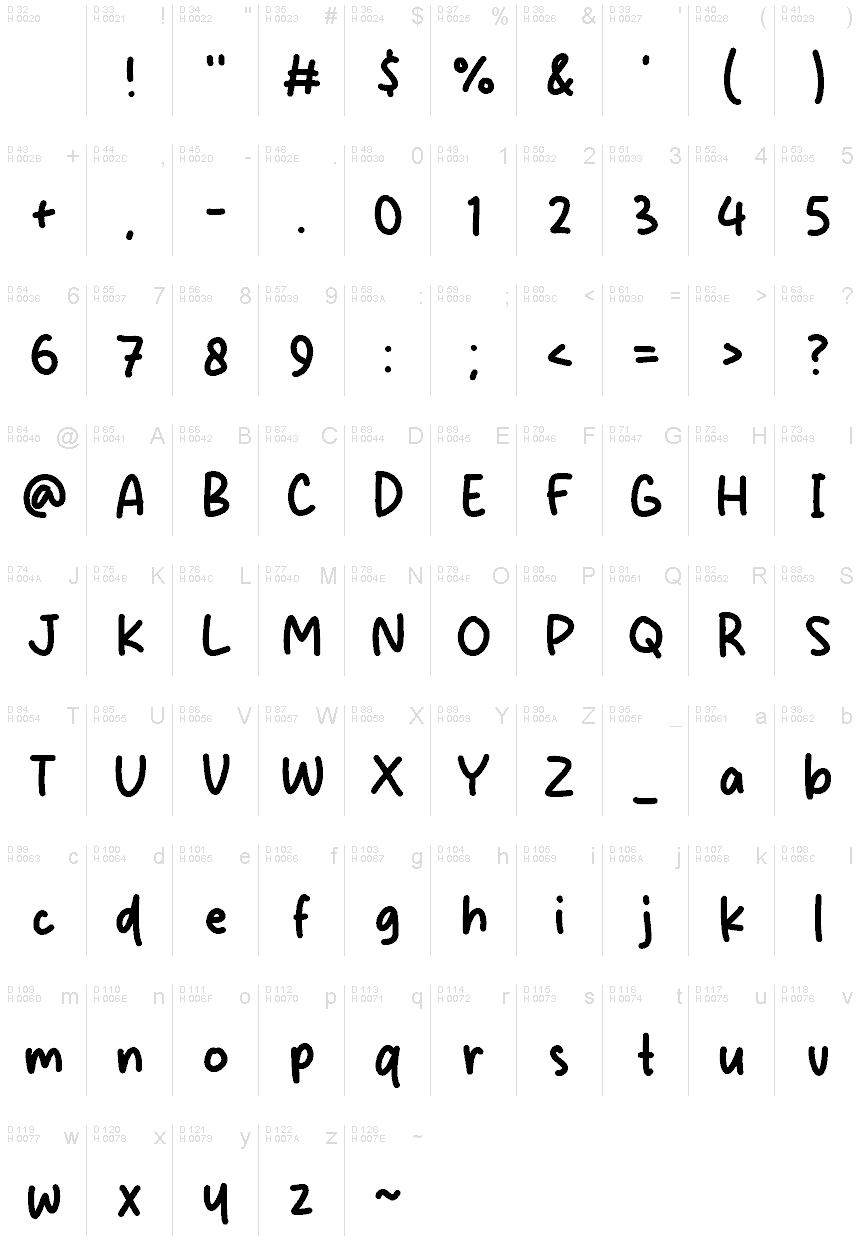
Morning Bright
Morning Bright font, designed by Origin Type, is a free handwritten font that dances with youthful energy. Capturing a casual, friendly, and approachable tone, this modern typeface effortlessly ties together an informal yet sophisticated look. Loosely curated letterforms give the typeface its characteristic appearance that uses variations in curves to provide a direct glimpse into its human element.